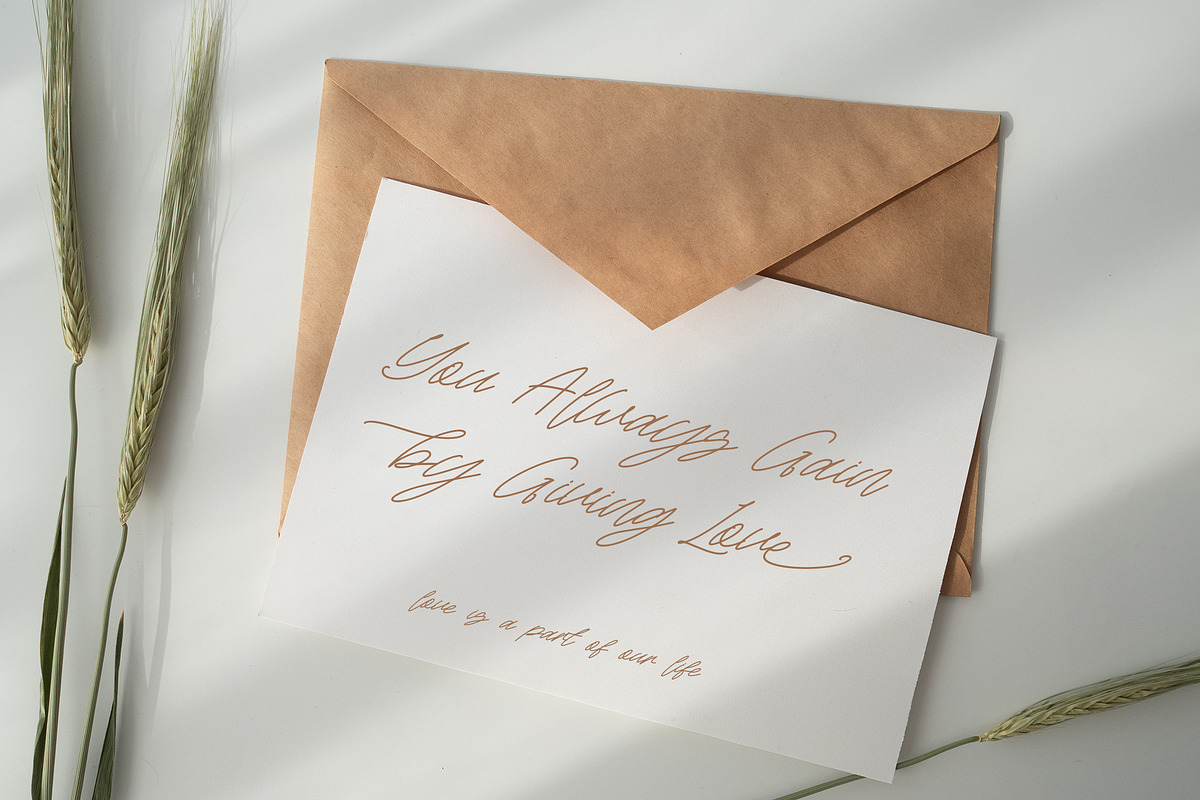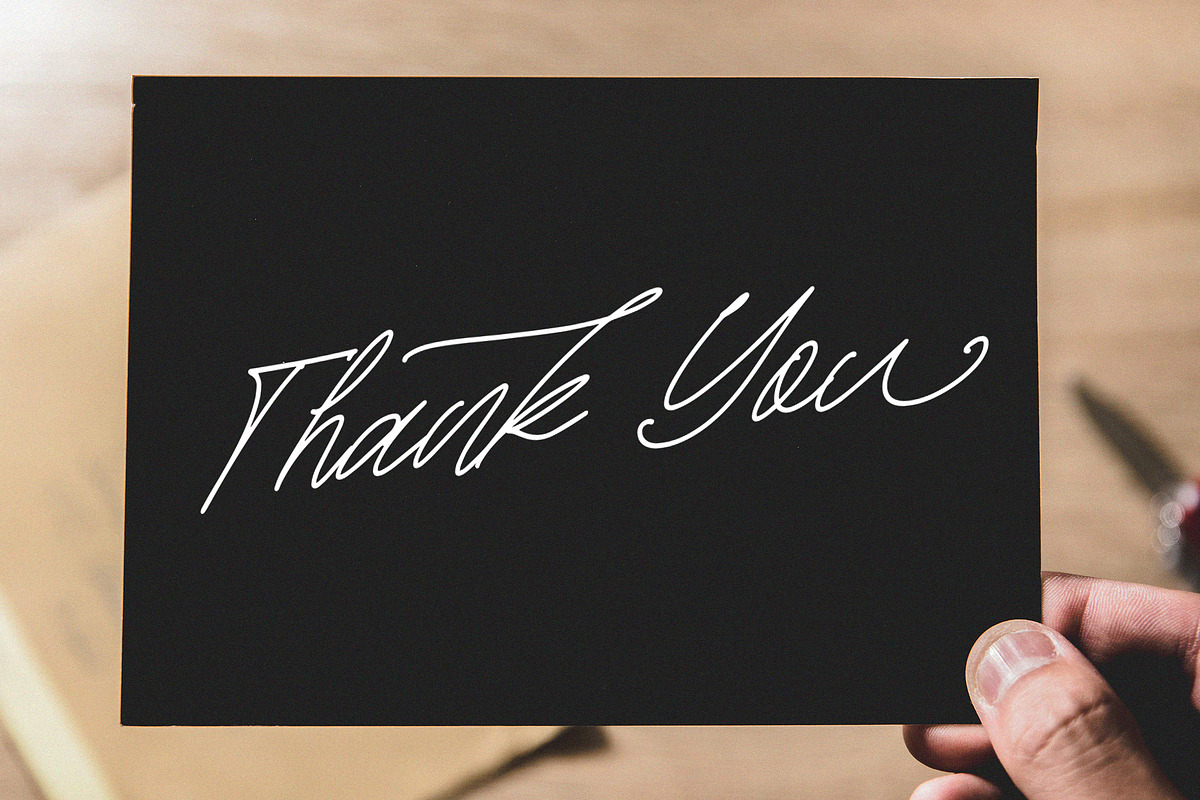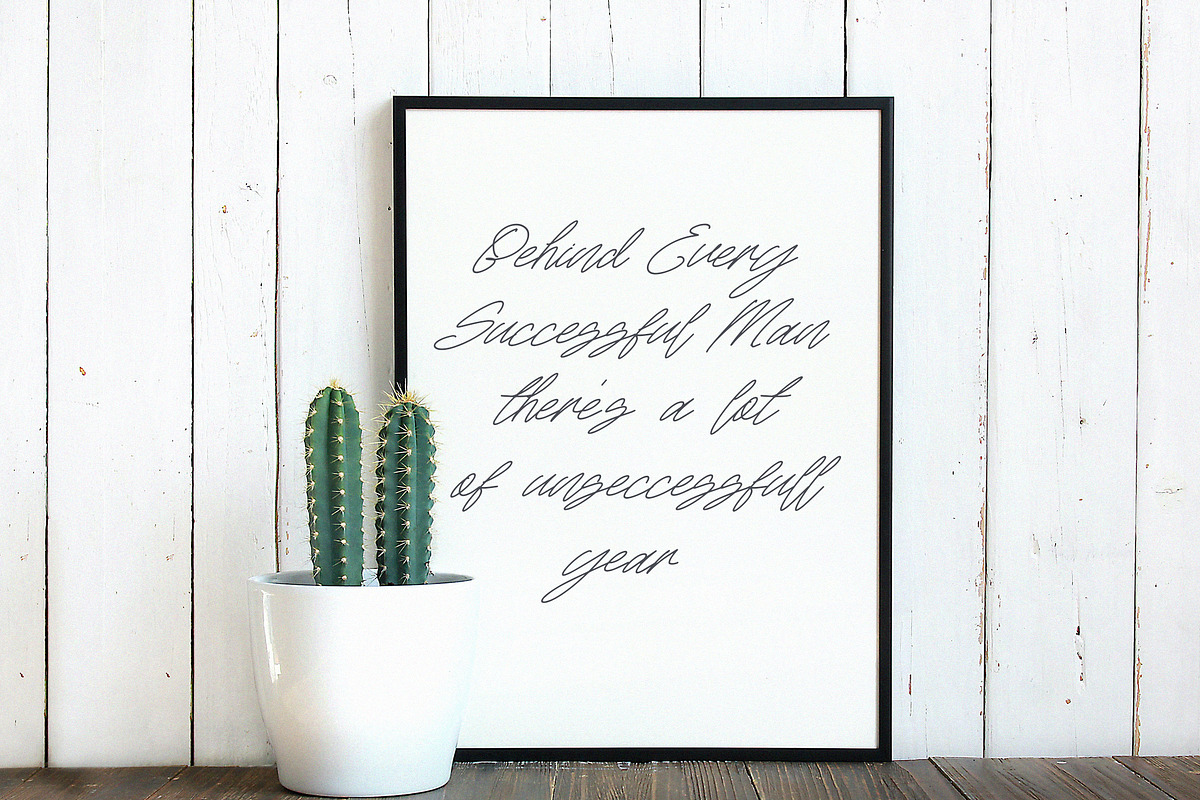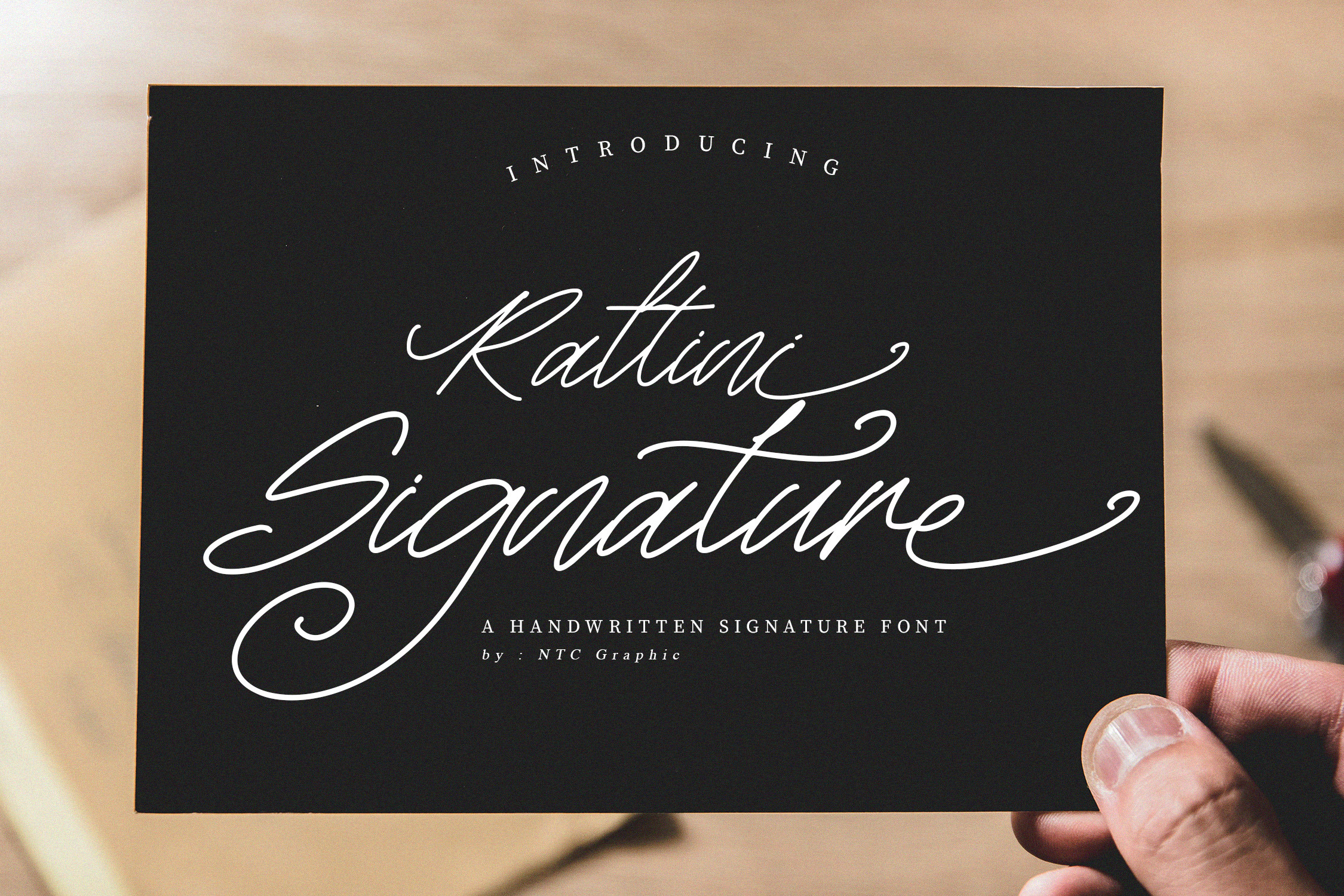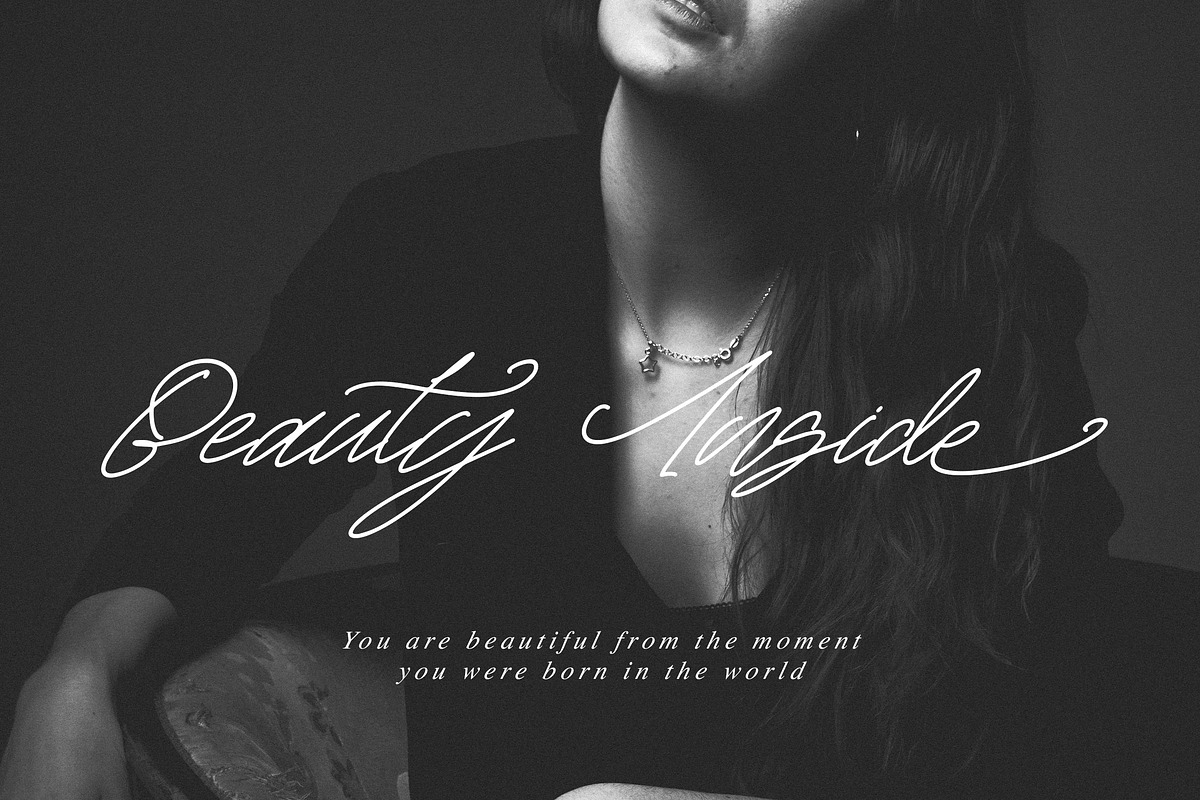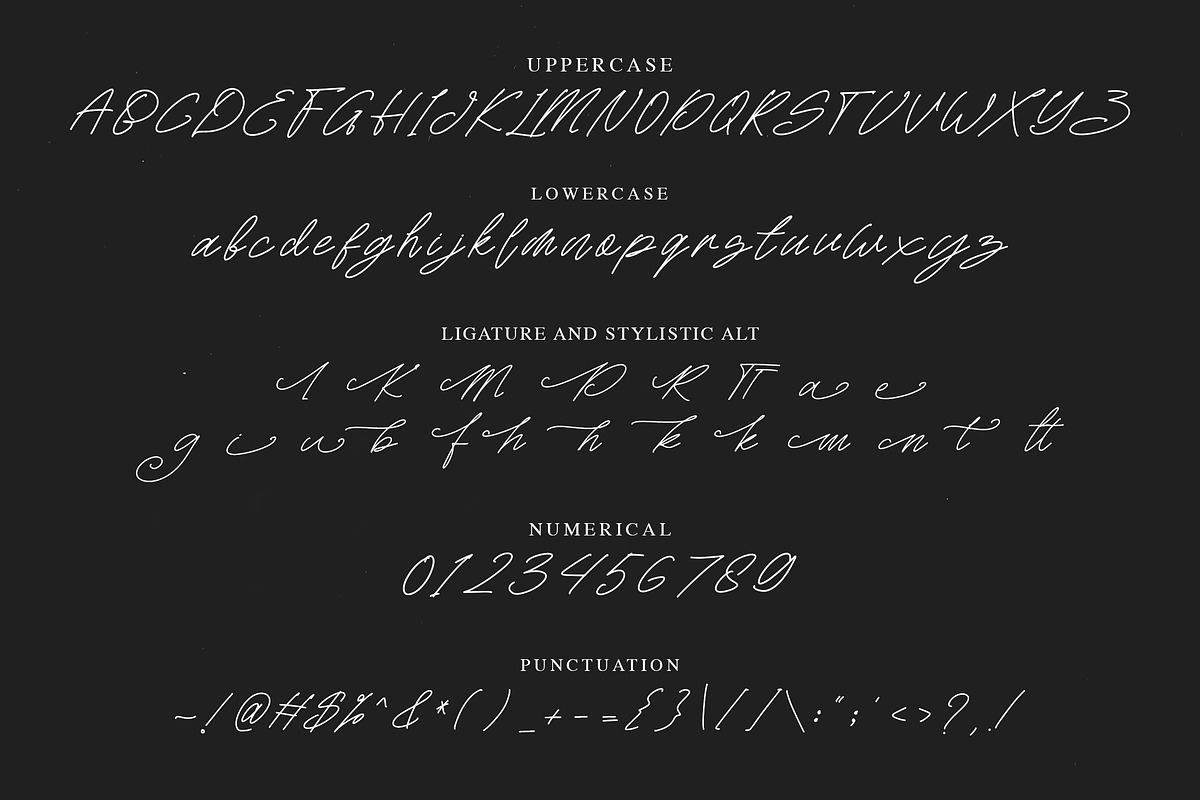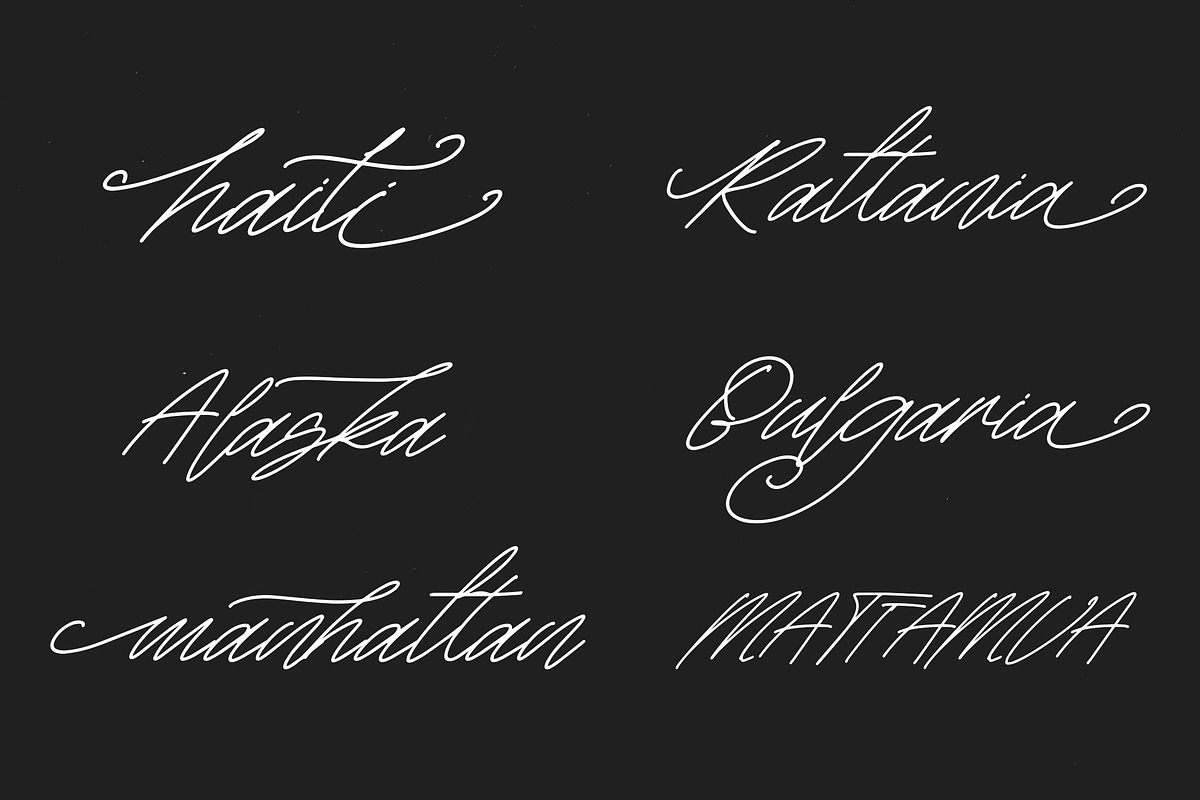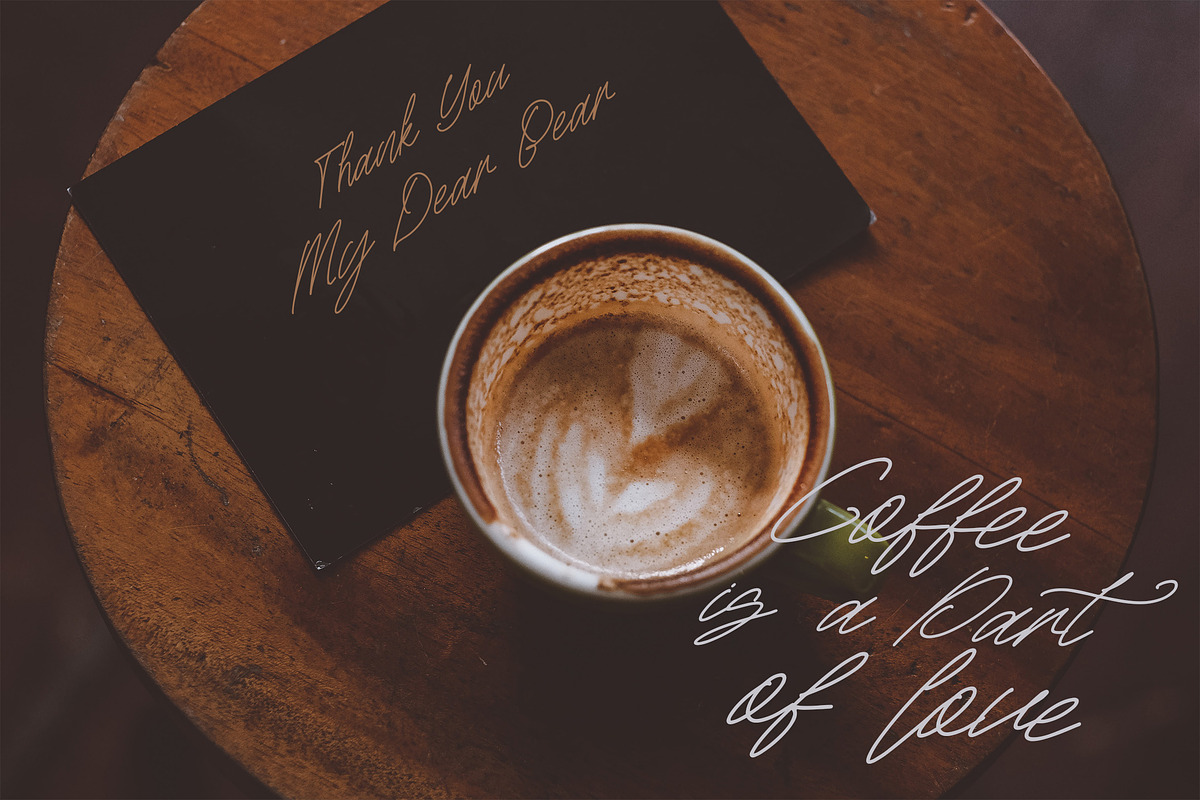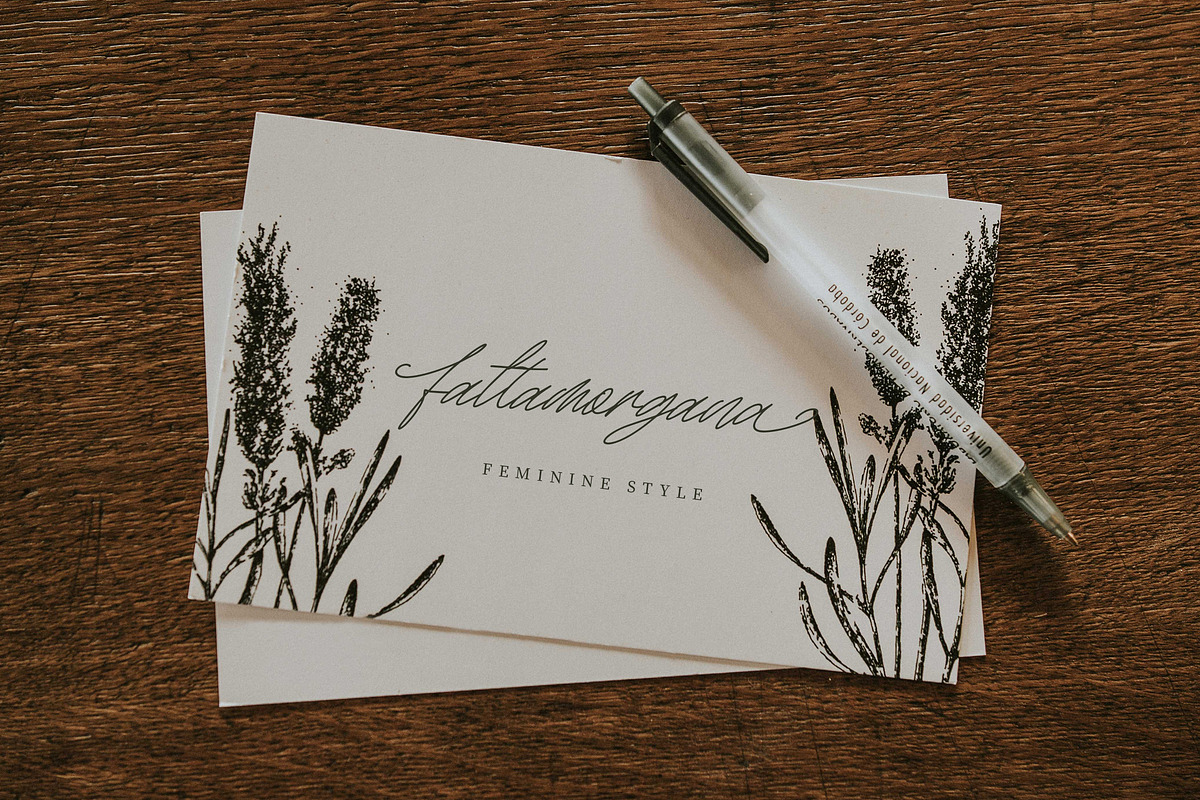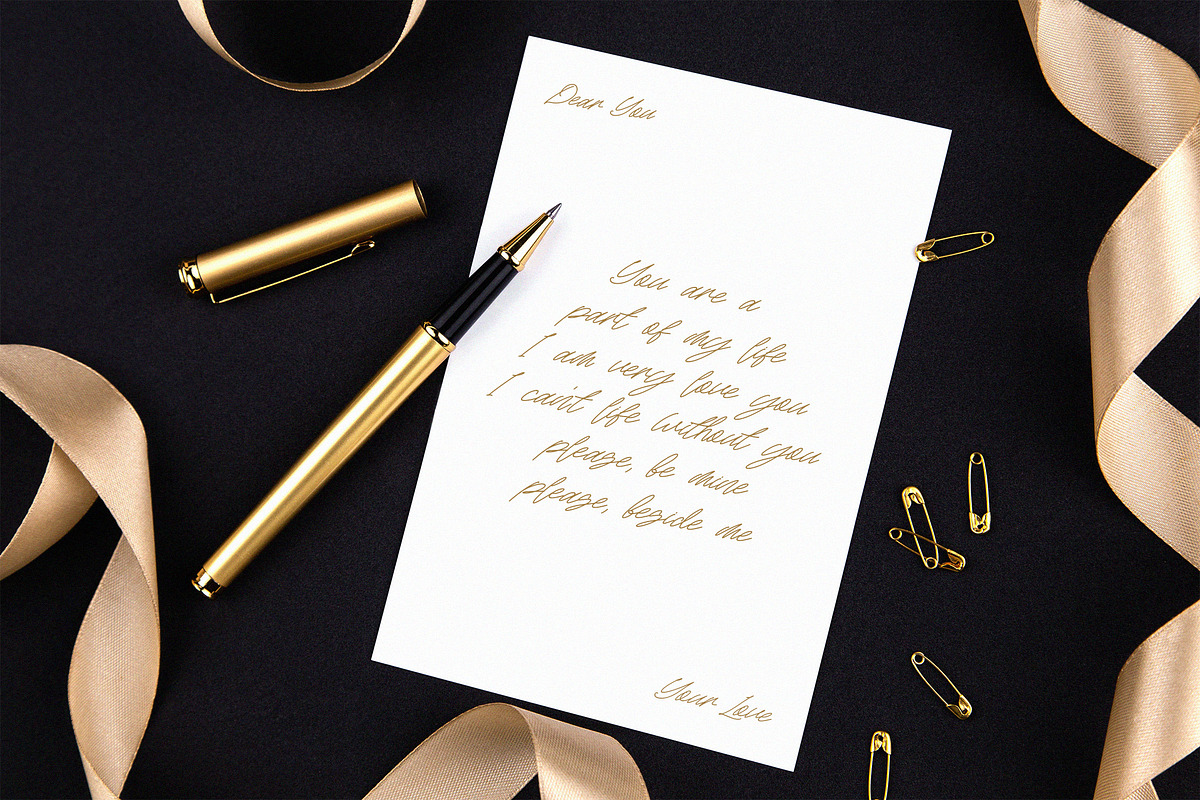
Rattini Signature Font
Rattini Signature is a Handwritten Signature type font that is very suitable for the publication needs of fashion, magazine, t-shirt design, flyers, and can also be used as a signature font. This font has a beautiful script character, but has a firm side in it. Made with hand scratches directly and then processed into font processing software.
Rattini Signature font with uppercase characters A-Z, lowercase characters a-z, punctuation, numerical, stylistic alternate, and ligature characters that enhance this font shape.
-Ligature
-Stylistic Alternate